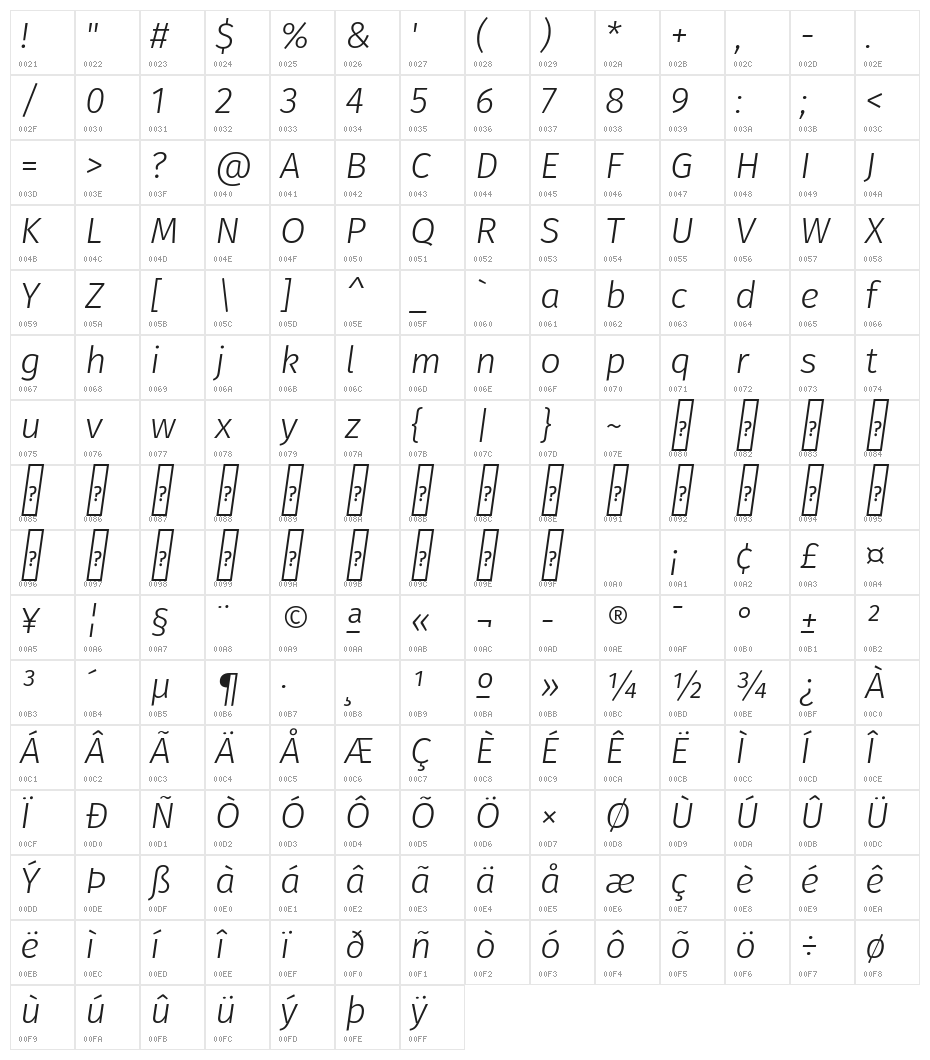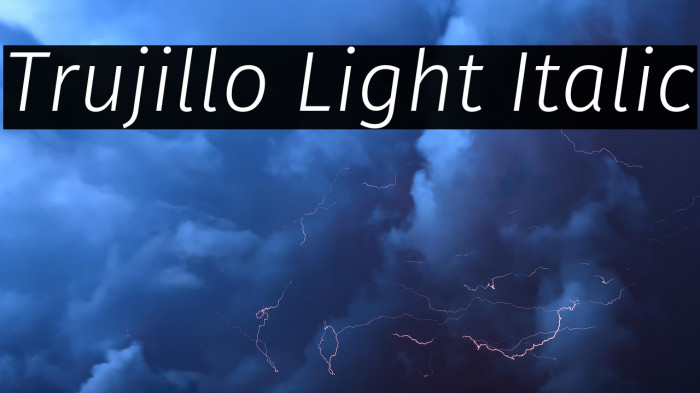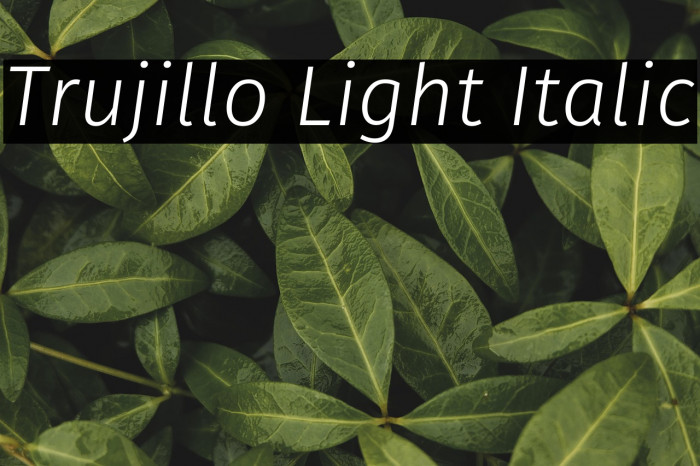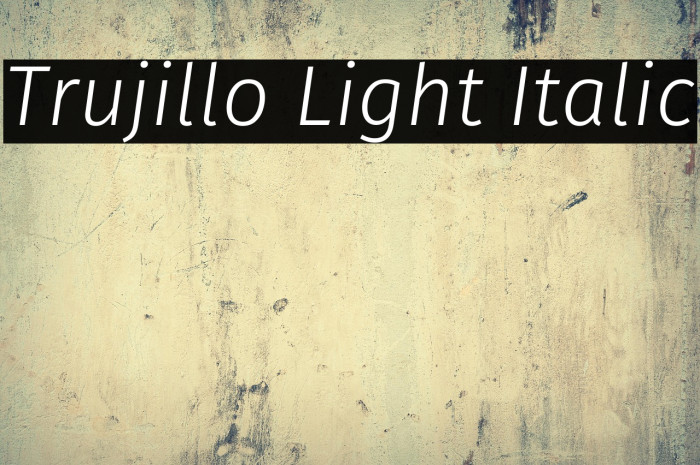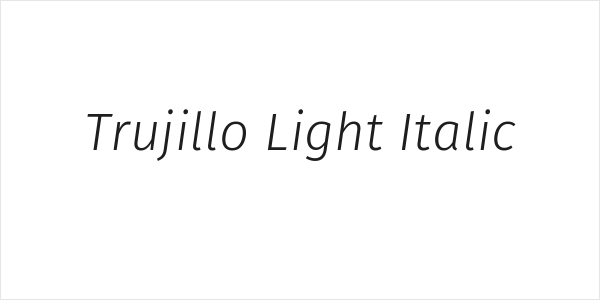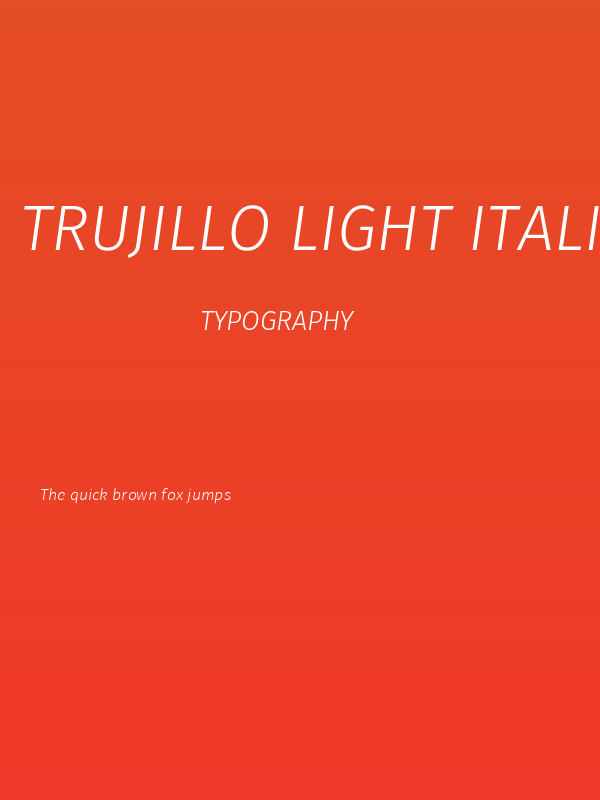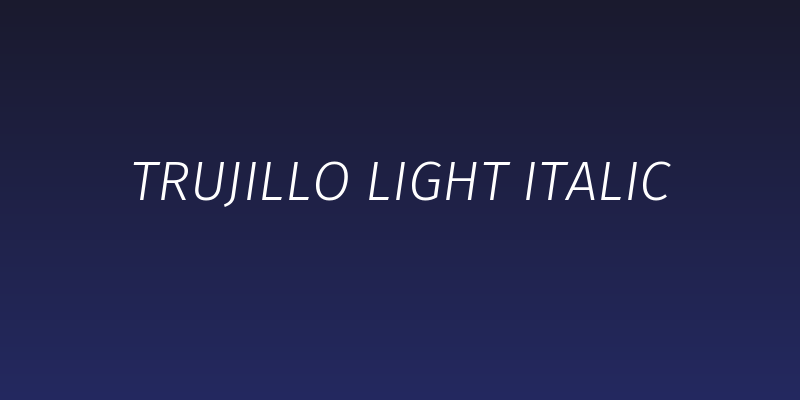
Trujillo Light Italic Font
Trujillo Light Italic Description
This font features a sleek and modern design with a light weight and italic style. The characters are elegantly slanted, providing a sense of motion and fluidity. The strokes are consistent and smooth, contributing to a clean and sophisticated appearance. The uppercase and lowercase letters maintain a harmonious balance, while the numerals and special characters are clearly defined and easy to read. This font's overall aesthetic is refined and contemporary, making it suitable for a variety of design applications.
| Proposed Projects | Ideal for branding, editorial design, and digital interfaces where a modern and elegant touch is desired. |